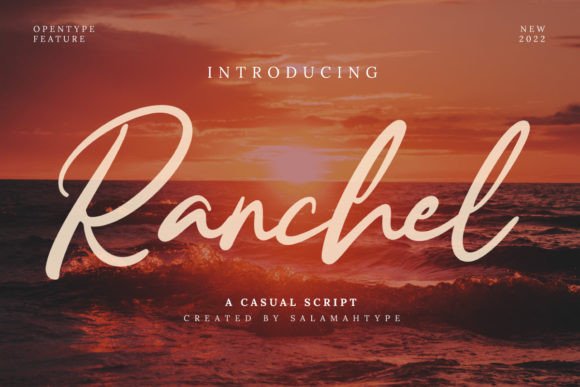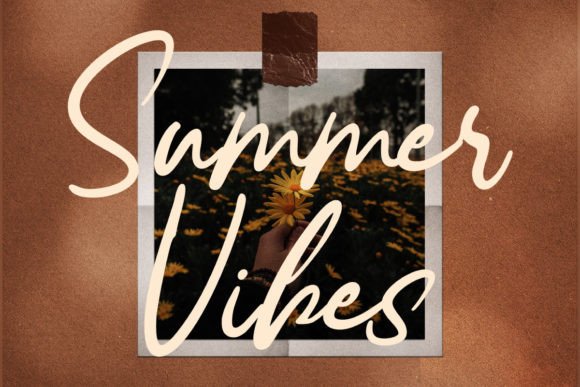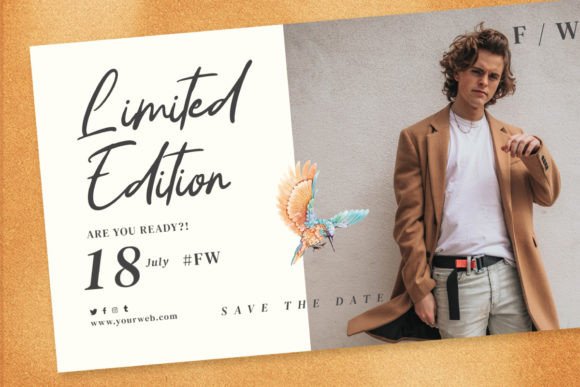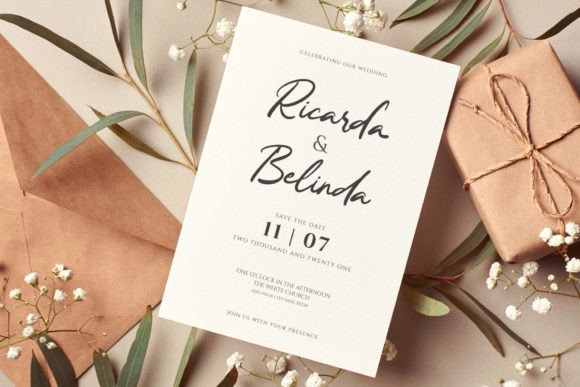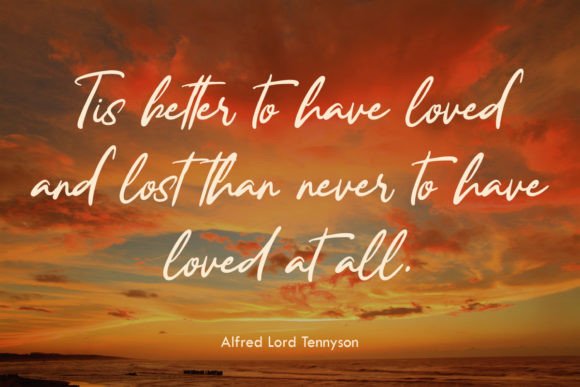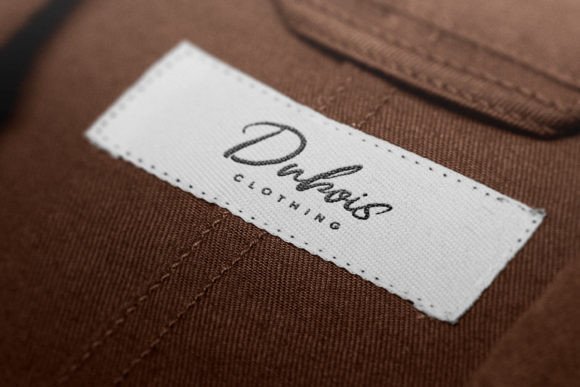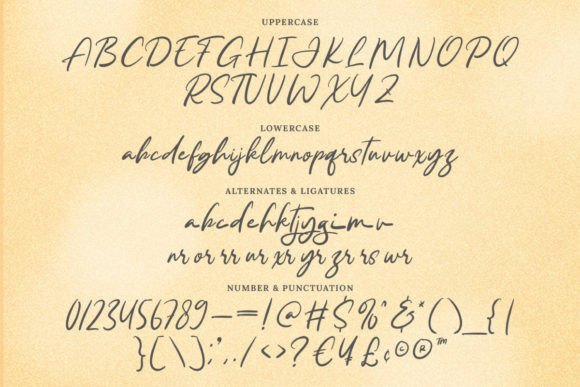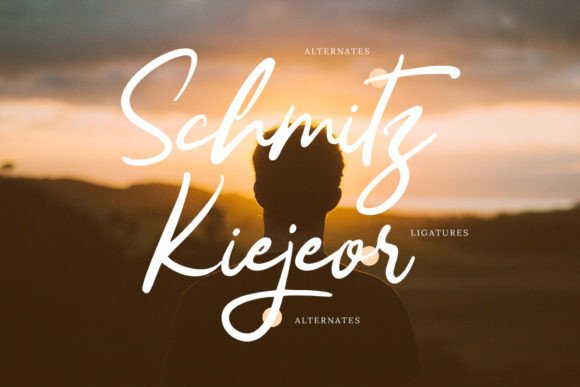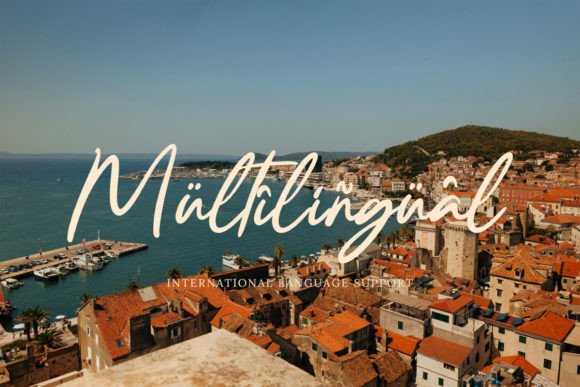
Ranchel Font
About Ranchel Font
Introducing “Ranchel” – Your Dazzling and Exquisitely Crafted Script Font!
“Ranchel” is not just a font; it’s a dazzling script typeface meticulously crafted with precision and attention to detail. This font is a true masterpiece, capable of enhancing any creative project, regardless of the topic or theme. When you add “Ranchel” to your font library, you’re gaining a versatile asset that has the potential to elevate all your creations.
With “Ranchel,” you get a font that exudes elegance and sophistication in every stroke. Its exquisite design makes it a perfect choice for a wide range of creative applications.
Imagine using “Ranchel” to craft enchanting wedding invitations, design sophisticated branding materials, create captivating social media graphics, or give your website a touch of refined beauty. This font takes your content to the next level, ensuring it stands out and leaves a lasting impression.
Whether you’re an experienced designer looking to infuse elegance into your projects or an individual with a passion for creativity, “Ranchel” is your ideal font for enhancing your work with a touch of timeless charm.